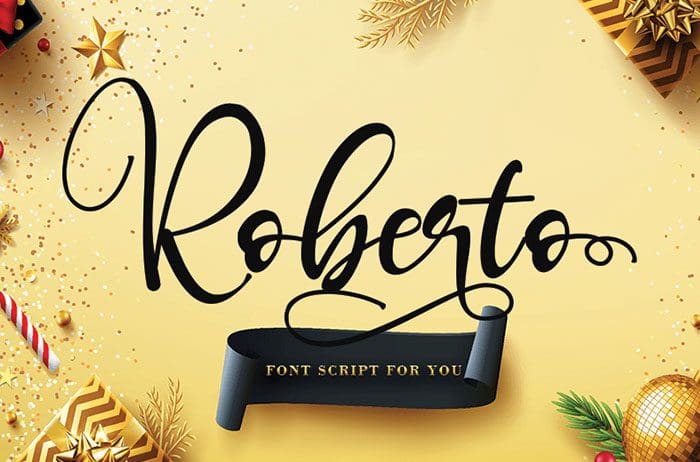
Free Roberto Script Font
Roberto Script Font
Free Roberto script font is a charming and magical hand-lettered. The playful rounded characters make it the perfect font for creating stunning calligraphy results. Roberto comes packed with beautiful swashes, that will allow you to add a decorative touch within seconds. Get inspired by its authentic feel and use it to create greeting cards, branding materials, business cards, quotes, posters, and more! Designed this font by Thomas Aradea. You can also search more freeĀ Script Fonts.